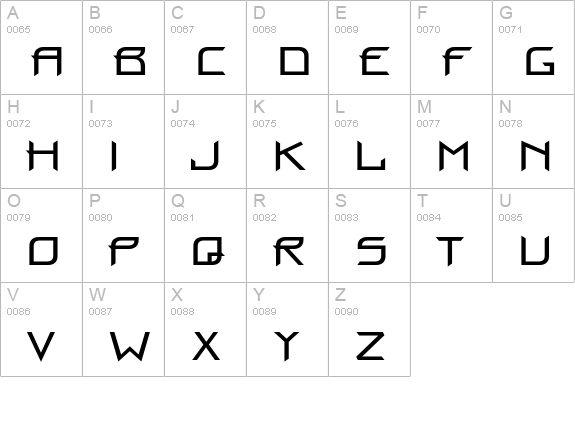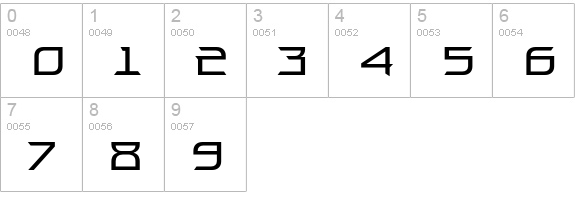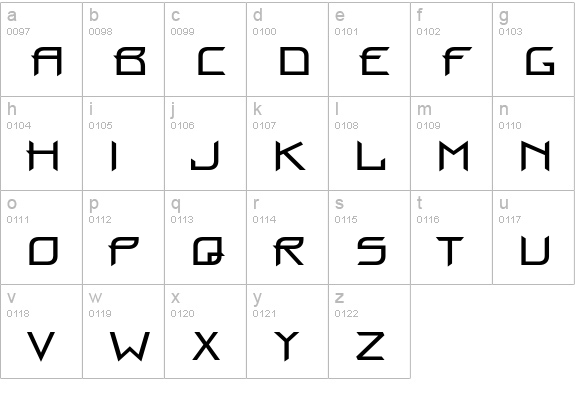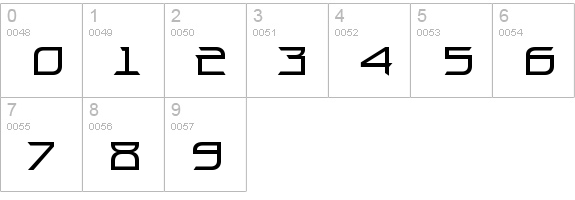
PT ProunB Cyrillic Font Details
PT ProunB Cyrillic font is a stunning display typeface that exudes elegance and sophistication. With its unique design and intricate details, this font is perfect for adding a touch of style to any project. The Cyrillic characters in PT ProunB Cyrillic font are beautifully crafted, making it an excellent choice for designers looking to incorporate Russian or other Slavic languages into their designs. The best part about PT ProunB Cyrillic font is that it is available for free download at FontsMarket.com. This means that you can easily access this gorgeous font and use it in your projects without any cost. Whether you're working on a branding project, a poster design, or any other creative endeavor, PT ProunB Cyrillic font will surely make a statement. Don't miss out on the opportunity to enhance your designs with the beauty of PT ProunB Cyrillic font. Download it for free at FontsMarket.com today and elevate your projects to new heights!